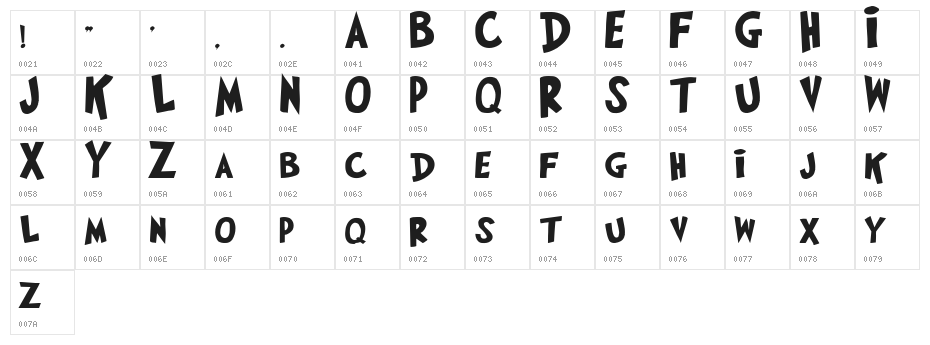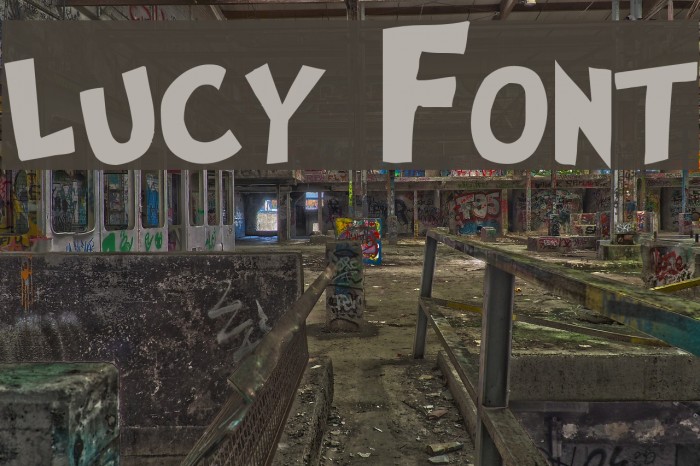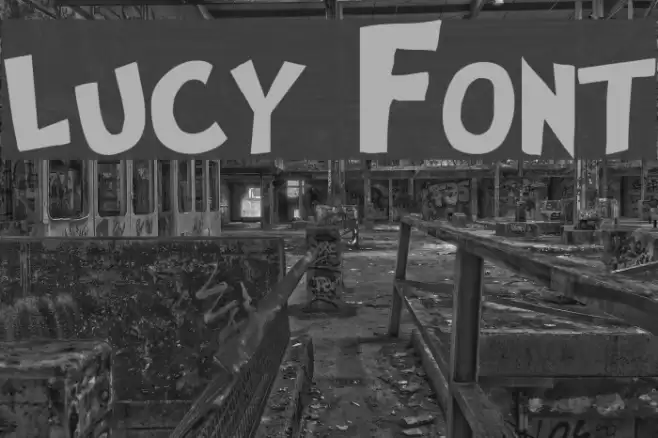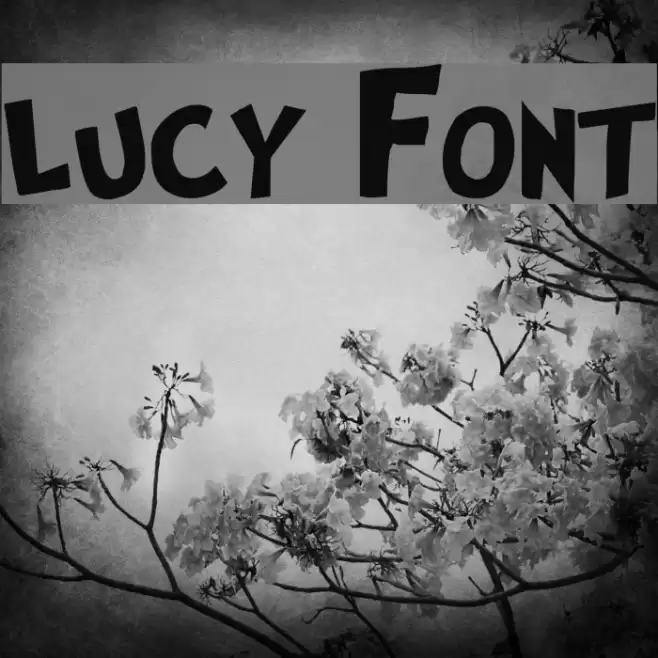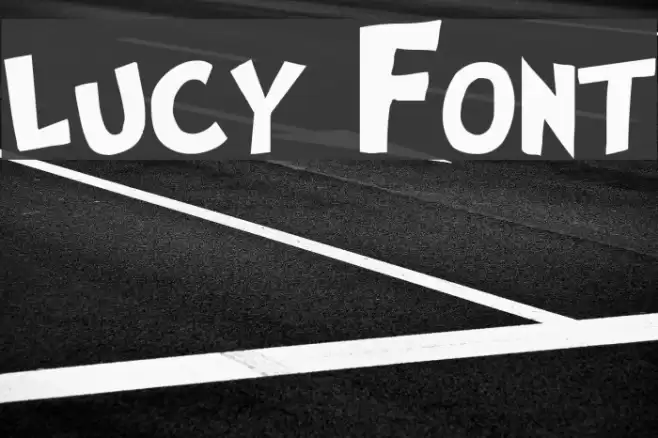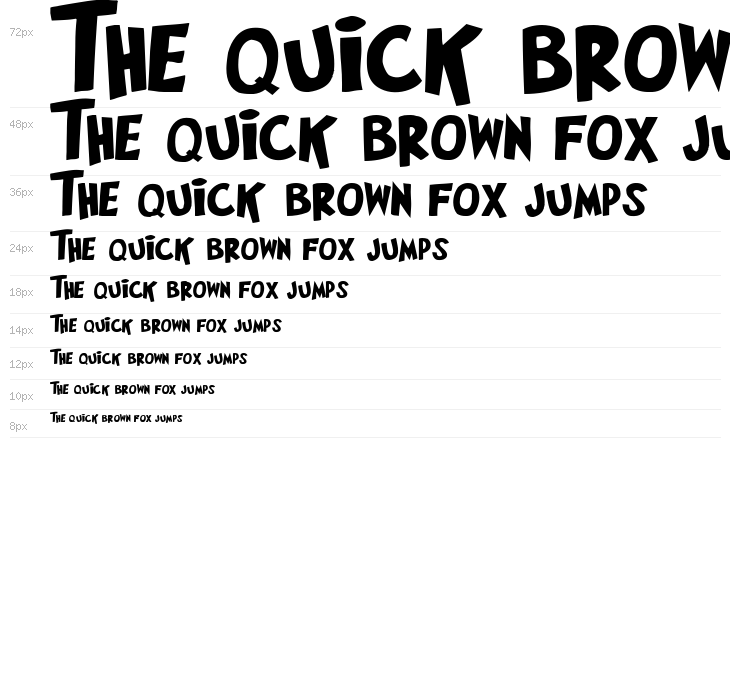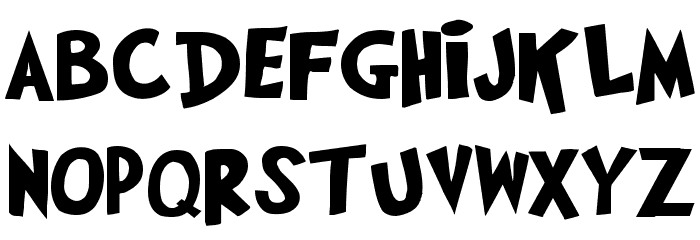
lucy Font
lucy Description
This font features a playful and bold design with exaggerated, uneven strokes that give it a whimsical and dynamic appearance. The characters are slightly tilted and vary in size, adding to the casual and informal feel. The uppercase and lowercase letters maintain a consistent style, with rounded edges and a hand-drawn look. The numbers and special characters follow the same playful theme, making the font suitable for creative and fun projects. Its unique style makes it stand out, perfect for capturing attention in headlines or artistic designs.
| Use Case | Headlines, Logos, Creative Designs |
| Proposed Projects | Ideal for children's books, comic strips, playful branding, and creative posters. |